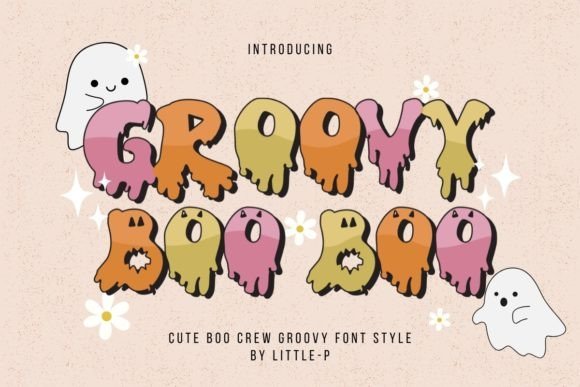
Get Ready to Cast a Spell with the Groovy Boo Boo Font
As the sun sets on a crisp autumn evening, the anticipation of Halloween builds up, and our creativity starts to stir. You’re sitting in front of your computer, browsing through fonts, and suddenly, you stumble upon something that makes your heart skip a beat – the perfect font to capture the essence of All Hallows’ Eve.
That’s when you discover Groovy Boo Boo Font, a display font that exudes a cute, spooky, and playful vibe, making it the ideal choice for your Halloween-themed designs. With its groovy and slime-inspired style, this font adds a touch of uniqueness to your creations, whether it’s a poster, card, or merchandise.
As a designer, you’ll appreciate the versatility of the Groovy Boo Boo Font, which allows you to unleash your creativity and make a statement with your Halloween projects. So, why settle for ordinary when you can have a font that’s truly groovy and boo-tiful?
Groovy Boo Boo Font Key Features
- Font Family: Groovy Boo Boo is a fun, handwritten font designed to add a playful touch to any project.
- Character Set: Includes a wide range of characters, including uppercase and lowercase letters, numbers, and punctuation marks.
- Unique Characteristics: Features a unique, hand-drawn style with subtle imperfections and variations in letterforms, giving it a distinctive and eye-catching appearance.
Designer Review: Groovy Boo Boo Font
First off, I have to say that the Groovy Boo Boo Font has some seriously groovy vibes going on ✨. The playful, retro-inspired design is sure to bring a smile to anyone’s face. The font’s irregular shapes and quirky letterforms make it perfect for creating eye-catching headings and titles. The font also has a wide range of weights and styles to choose from, which is always a bonus.
Now, let’s talk about the limitations ⚠️. While the font is great for headings and titles, it’s not the most readable font for large blocks of text. The irregular shapes can make it difficult to follow along, especially at smaller font sizes. Additionally, the font’s retro vibe may not be to everyone’s taste, and some designers may find it too kitschy or over-the-top.
- Playful, retro-inspired design ✨
- Irregular shapes and quirky letterforms
- Wide range of weights and styles
- Not ideal for large blocks of text
- May be too kitschy or over-the-top for some designers
Overall, I’d say the Groovy Boo Boo Font is a great addition to any designer’s toolkit, but it’s not a one-size-fits-all solution. Use it sparingly to add some personality to your designs, but be mindful of its limitations when it comes to readability and overall impact.
For best results, use the Groovy Boo Boo Font in bold or italic styles to add emphasis.
– Party invitations and decorations
– Children’s book illustrations and typography